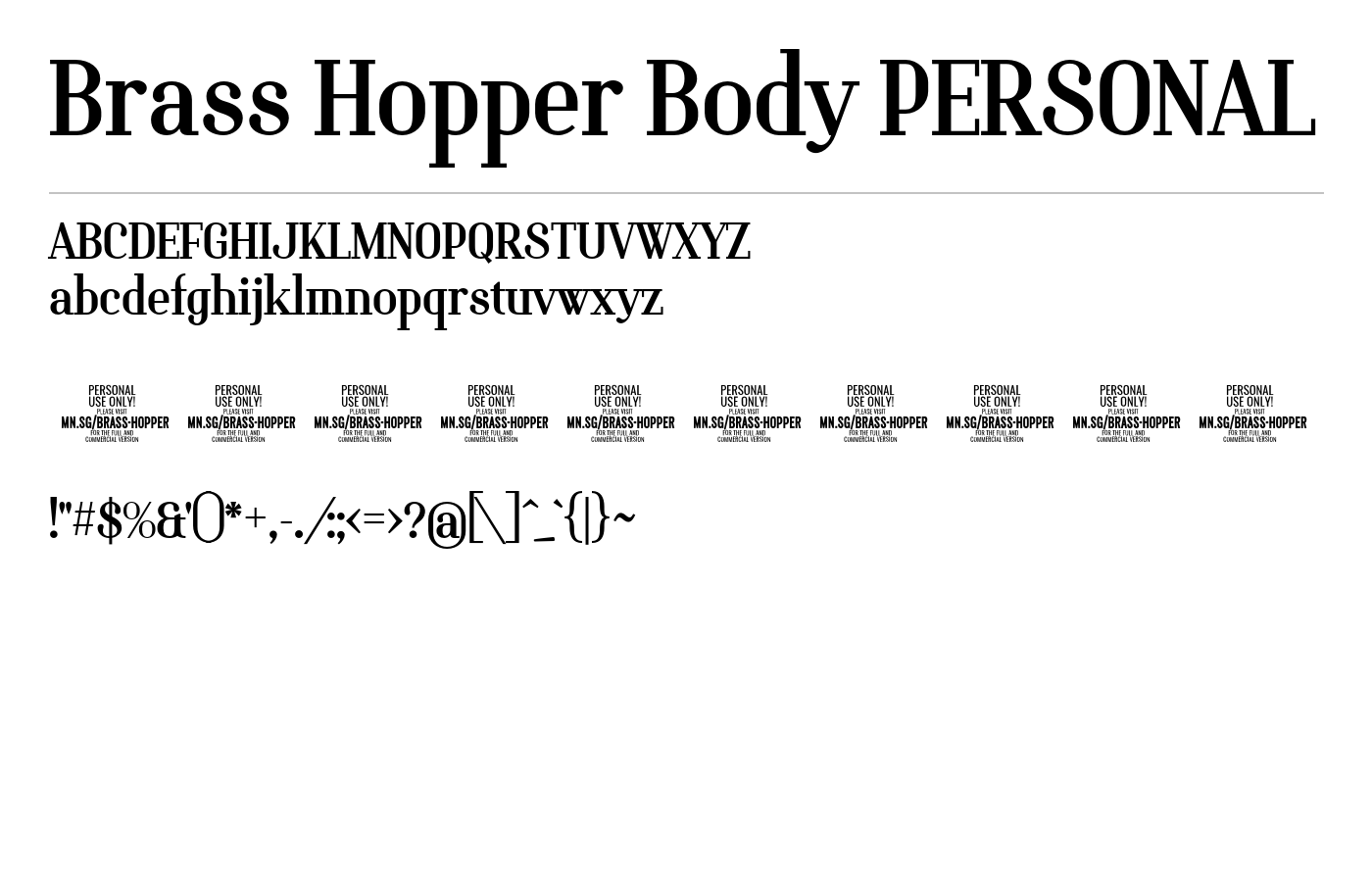
Brass Hopper Body PERSONAL is a distinctive serif font with a modern yet vintage feel, featuring strong vertical stress and high contrast between thick and thin strokes. Its narrow width and elegant, bracketed serifs give it a refined, classic character suitable for sophisticated headlines, editorial design, and luxury branding. This typeface works well in contexts where a stylish, authoritative tone is desired, making text both eye-catching and memorable.
Brass Hopper Body PERSONAL Font
About Brass Hopper Body PERSONAL Font